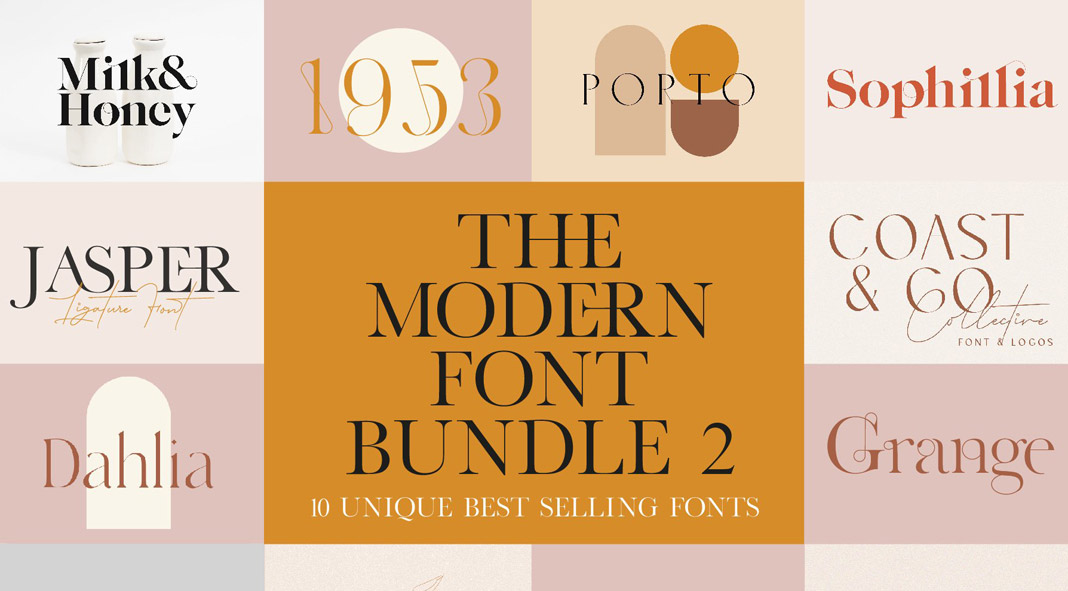
Download ten best-selling vintage fonts in one big bundle!
After the huge success of the first font bundle published by New Tropical Design, the studio just released a second edition by the end of last year. Equipped with ten unique vintage fonts that totally stand out from any general collection of typefaces, this bundle will help you to create eye-catching typographic designs in no time. Every included font combines the elegance of vintage lettering with a modern vibe. In addition, the bundle includes a well-designed set of bonus logo templates for free! Read more below or click on the following link to grab this amazing deal before it expires.
To be honest, the internet is full of huge font bundles that are full of boring, totally generic fonts but this is not one of them! Fonts like Sophillia, Jasper or Grange are full of elegant ligatures that can’t be found anywhere else while Modernica, Coast & Co, and Botanica are modern interpretations of the past times. As mentioned before, the bundle includes plenty of bonus logos thrown in also in EPS and AI formats. For more detailed descriptions of individual fonts, just follow the link below.